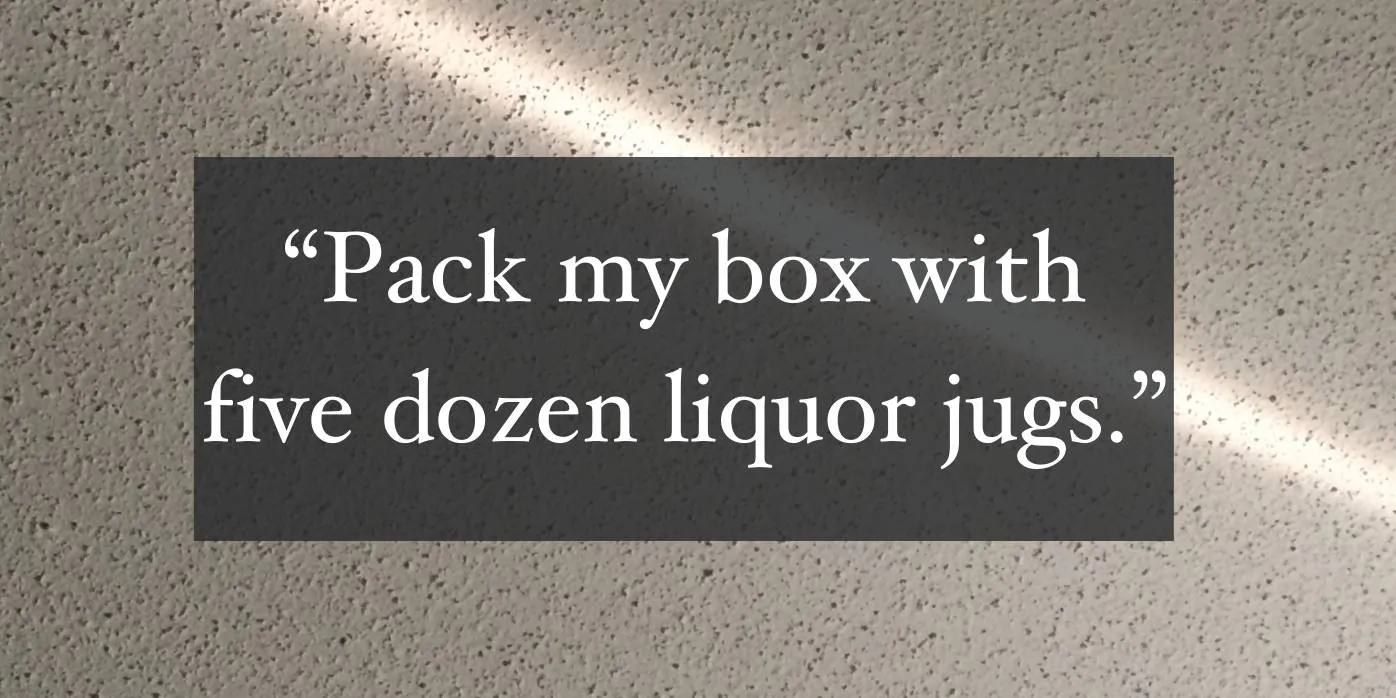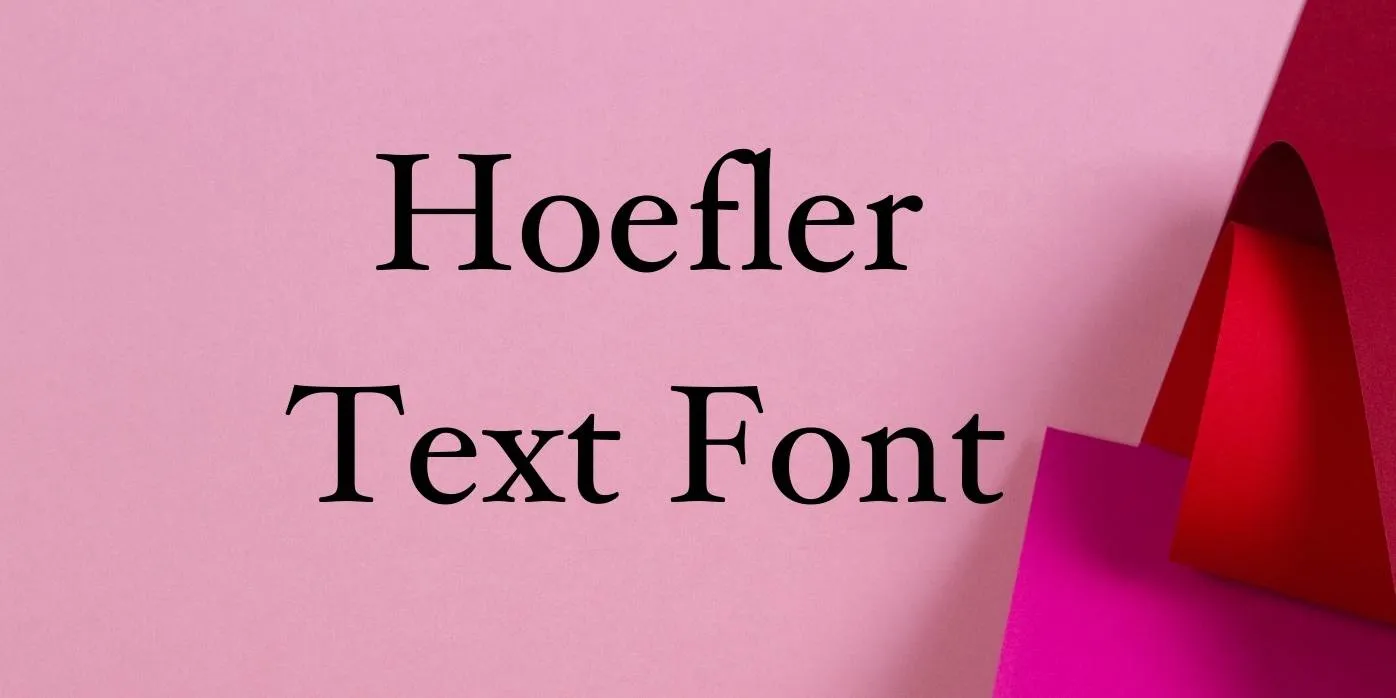
Hoefler Font
Hoefler Font is developed by Jonathan Hoefler. This typeface belongs to the Serif typeface. It is a very popular font that can be found almost everywhere. This amazing typeface includes weights such as light, regular, medium, semi-bold and bold.
This classic font is perfect for both headlines and long passages of text. One of the great things about this typeface is that it has very high legibility. This means that it can be used in a lot of different settings without causing any readability issues. It is specified by the CSS Family.
Its copy and paste function is best. Trajan Pro Font is very closest and similar to this classy typeface. This typeface is best for a different program like Canva. It’s not suitable for small text because it can be difficult to read.
Secondly, you can use this Font in all caps. Thirdly, the font is very versatile and can be used for a variety of projects. Finally, it is important to choose the right typeface for your project and this Font is a great option for many types of designs.